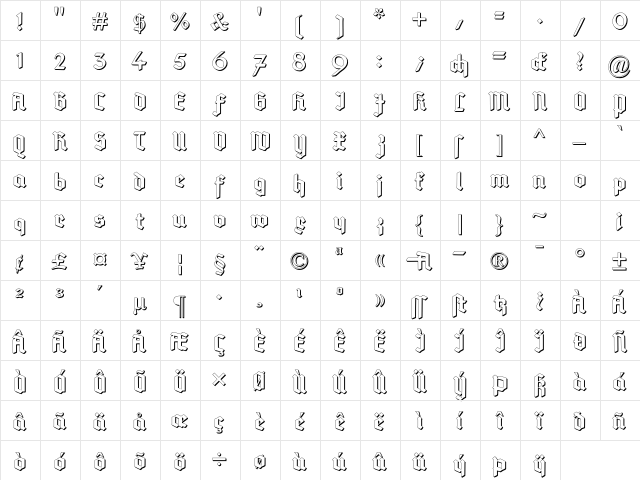
Deutsch-Gotisch Shadow Regular
| Designer | Dieter Steffmann, Kreuztal |
Design Context for Deutsch-Gotisch Shadow Typeface
Deutsch-Gotisch Shadow is built around its visual character rather than neutral utility — its distinctive forms are designed to make an impression at display sizes.
Font Pairing: Pair with a clean neutral sans-serif for body copy to let Deutsch-Gotisch Shadow's character lead without overwhelming the composition.
Pro Tip: Treat Deutsch-Gotisch Shadow as the centrepiece of your typographic hierarchy. One strong heading set in a decorative face can carry an entire layout.